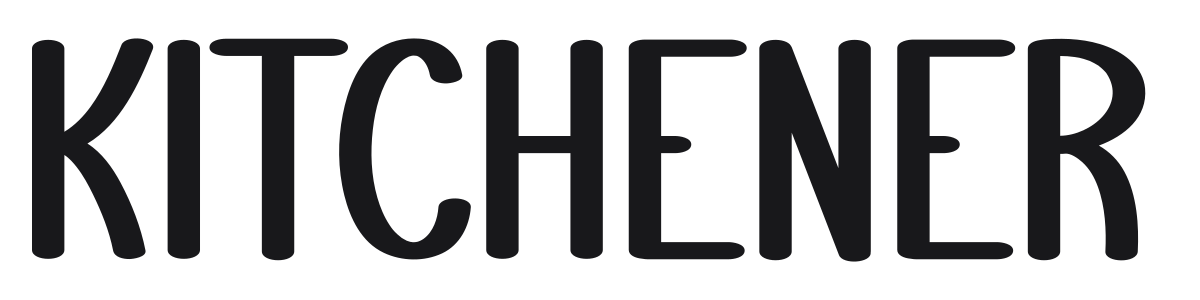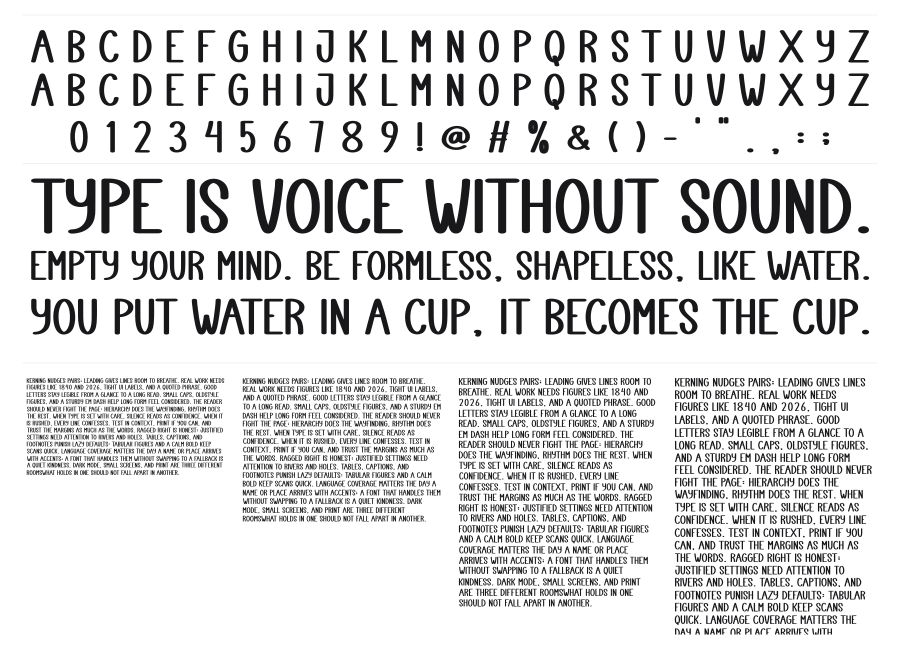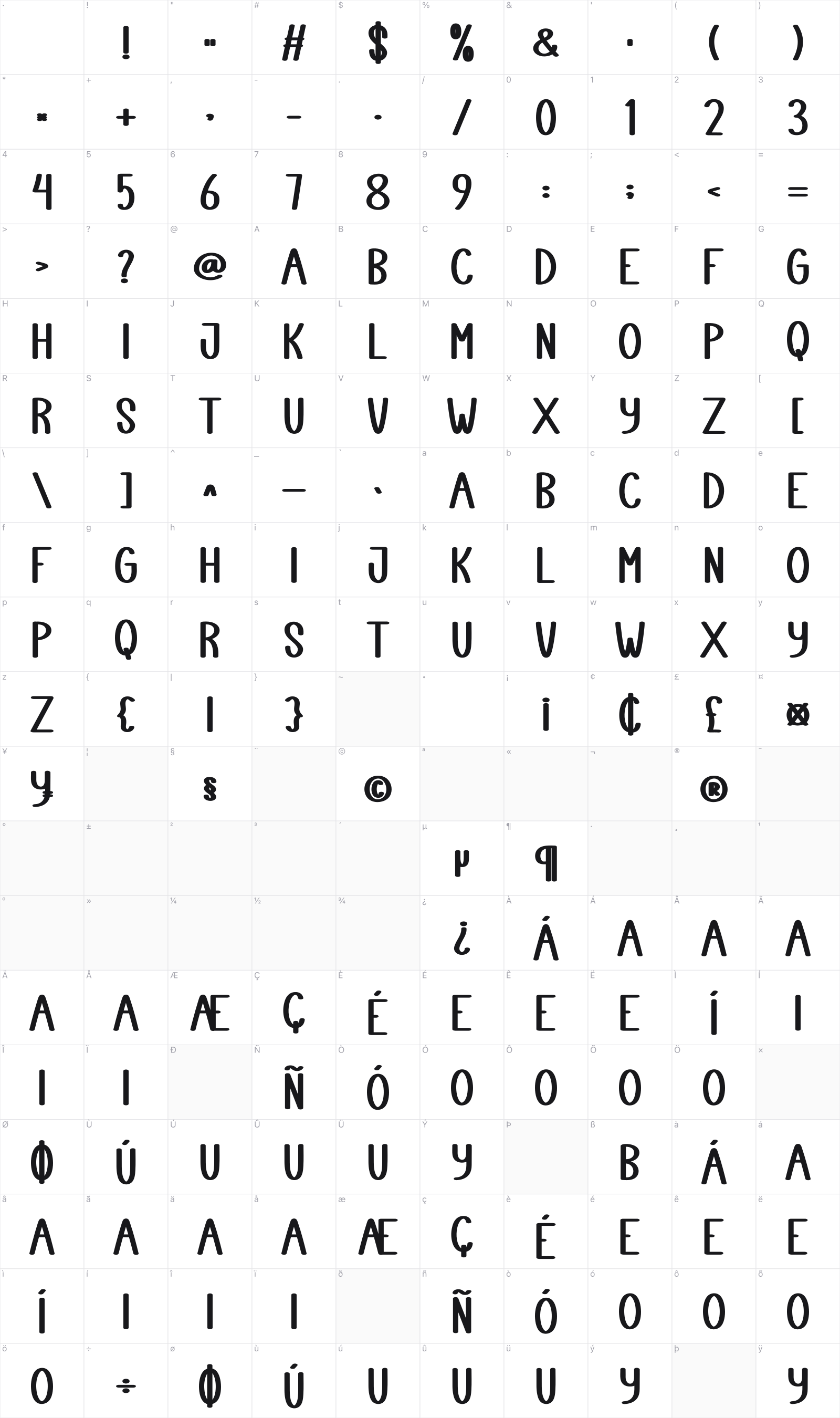
Kitchener
Kitchener is an upright handwritten display font with a bold, marker-drawn quality and gently irregular strokes. The tall, narrow proportions give it energy, while the soft terminals keep it warm and approachable rather than sharp. It works well for wedding stationery, greeting cards, branding, and anywhere a handcrafted, personal touch is needed.